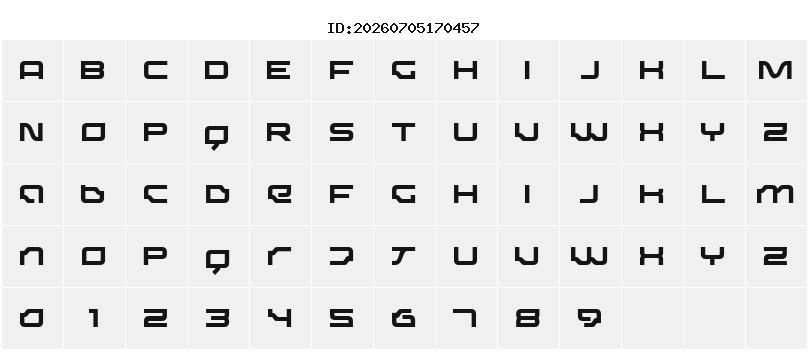
Dominator Preview
• Font Name: Dominator
• Full Font Name: Dominator Medium
About Dominator.ttf
Dominator.ttf is a modern, elegant sans-serif font designed for ultimate readability and visual harmony. Perfect for branding, headlines, web design, and print materials.